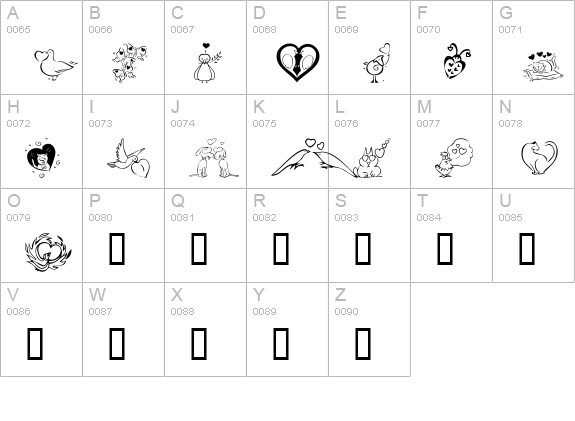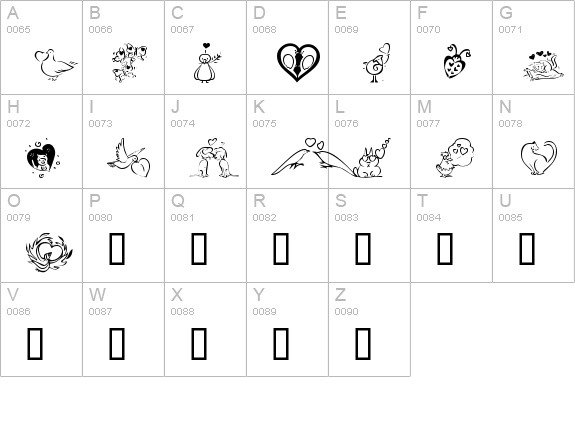
KR Valentines 2006 Three Font Details
The KR Valentines 2006 Three font is a charming and whimsical typeface perfect for adding a touch of romance to your designs. This lovely font features delicate heart motifs and a playful aesthetic that will surely capture the essence of Valentine's Day. With its unique and intricate design, the KR Valentines 2006 Three font is ideal for creating heartfelt messages, greeting cards, invitations, and more. Best of all, this delightful font is completely free to download at FontsMarket.com. Simply visit the website and start using this beautiful typeface in your projects today. Let the KR Valentines 2006 Three font bring a touch of love and warmth to your designs with its lovely characters and romantic vibe. Download it now and spread the love with every word you write.